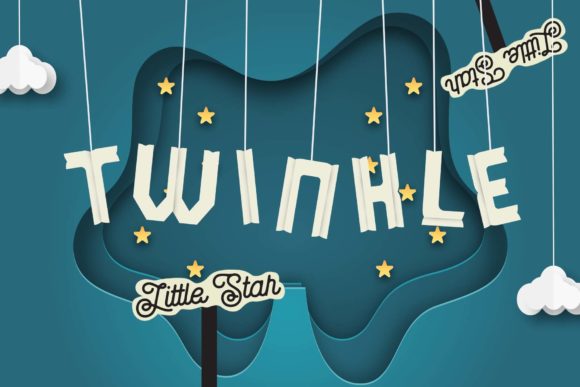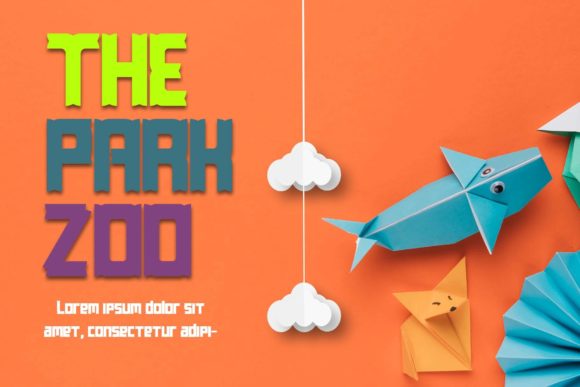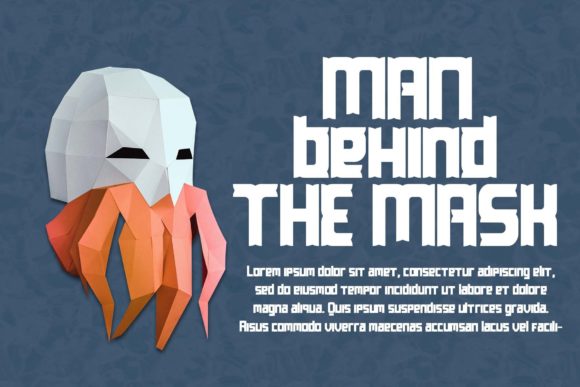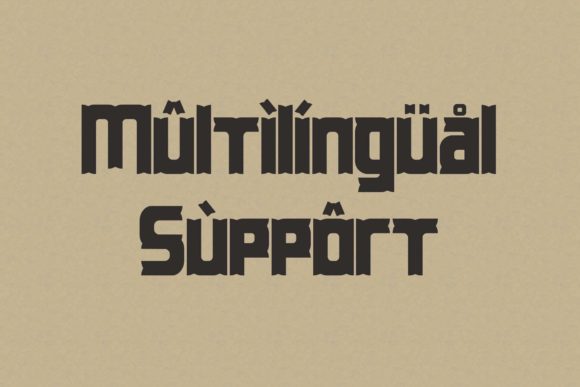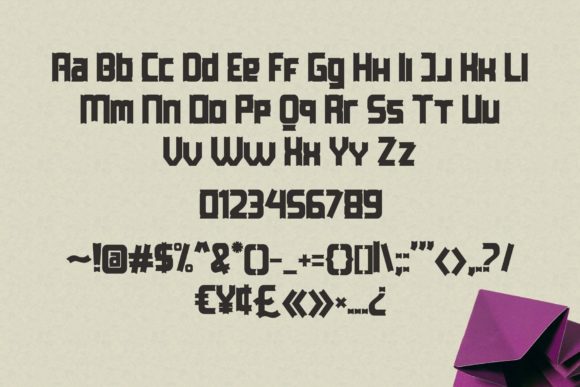
Introduction to Paporigam Font
Have you ever found yourself scrolling through design inspiration boards, searching for that perfect font to elevate your creative project? You know, that moment when everything comes together, and you envision your design shining with a vibrant personality. For designers, that ‘aha’ moment is invaluable, and the right font can be the key to unlocking it.
Meet the Paporigam Font, a fun and bold display font that’s sure to bring a smile to your face. Its playful nature makes it an ideal choice for cartoon-related designs, children’s games, and any creation that requires a lovely touch. Whether you’re working on a free download or a high-quality design resource, Paporigam Font is an amazing choice to add a pop of personality to your project.
Key Features of Paporigam Font
- Unique, hand-drawn design perfect for creative projects and adding a personal touch.
Honest Review: Paporigam Font
- ✨ Unique design aesthetic: The Paporigam Font has a quirky, playful feel that’s perfect for projects that need a bit of whimsy.
- ✨ High quality: The font is well-designed and looks great on both light and dark backgrounds.
- ⚠️ Limited character set: The Paporigam Font has a relatively small character set, which may not be suitable for longer texts or formal documents.
- ⚠️ Not ideal for small text: Due to its unique design, the font may not be the best choice for small text sizes, as it can become difficult to read.
Overall, I think the Paporigam Font is a solid addition to any design resource library. While it may have some limitations, its unique design and high quality make it a great choice for creative projects. Just be sure to use it wisely and in the right context.
Paporigam Font
Tips for Getting the Most Out of Paporigam Font
To achieve the best results with Paporigam Font, make sure to:
- Experiment with different font sizes and styles to find the perfect combination.
- Combine Paporigam Font with other design resources for a unique and eye-catching look.
Paporigam Font is ideal for:
- Creating eye-catching headings and titles.
- Designing engaging social media graphics.
- Developing high-quality marketing materials.